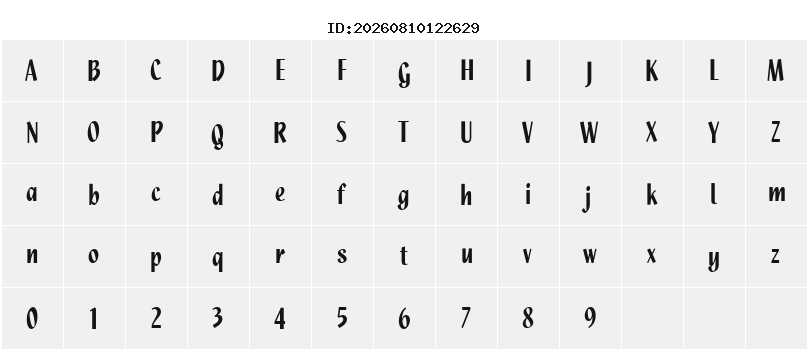
• Font Name: Quixley
• Full Font Name: Quixley Plain
About Quixley.ttf
Quixley.ttf is a modern, elegant sans-serif font designed for ultimate readability and visual harmony. Perfect for branding, headlines, web design, and print materials.